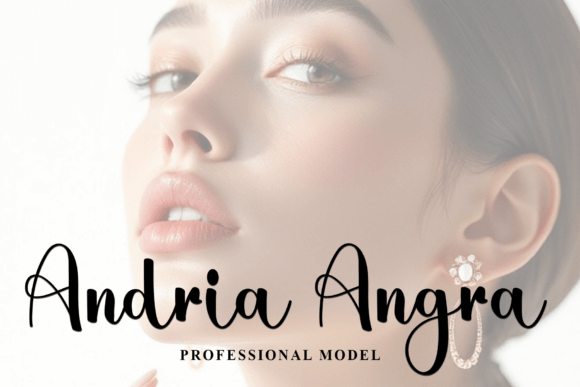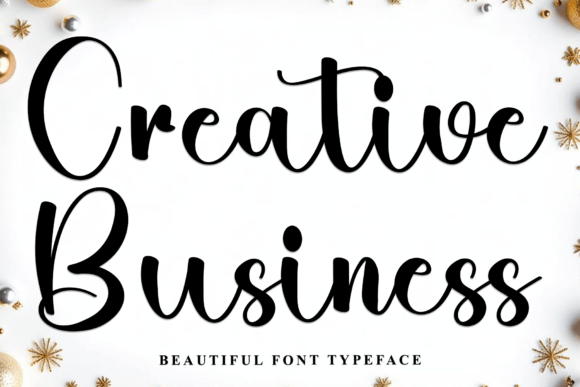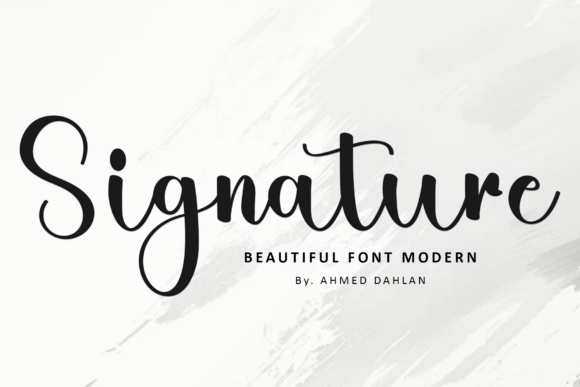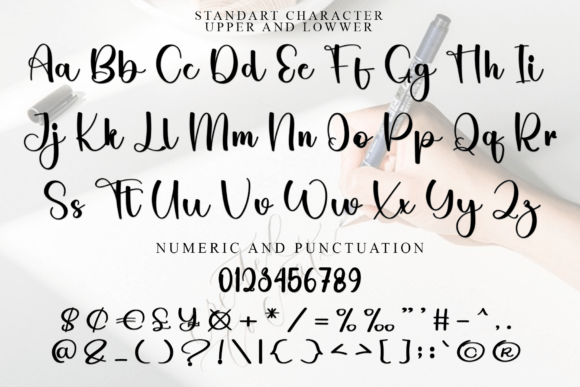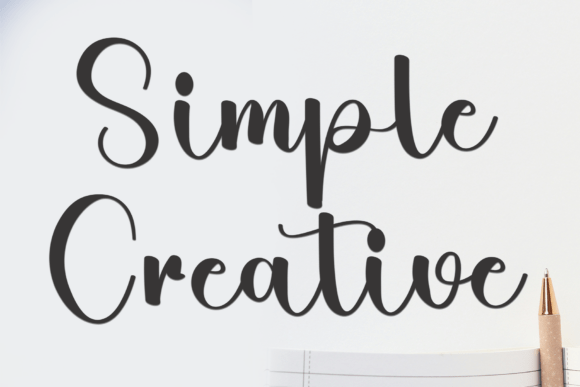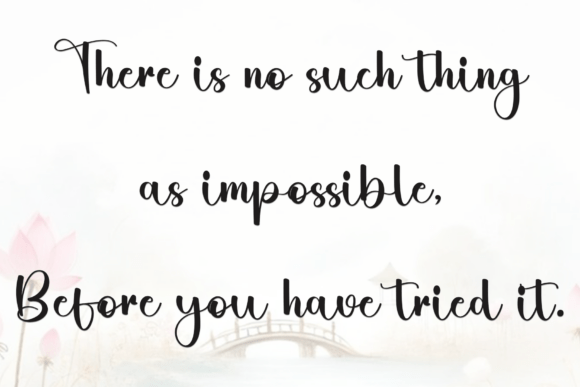
Introducing Christmas Magnolia Font: A Festive and Merry Typeface for the Holiday Season
The holiday season is upon us, and with it comes the joy of creating festive and merry designs that capture the spirit of Christmas. For designers and crafters looking to add a touch of enchantment to their projects, the Christmas Magnolia Font is a perfect choice. This beautiful and whimsical typeface is designed to bring a cheerful and nostalgic ambiance to your words, making it ideal for greeting cards, gift tags, and holiday-themed projects.
A Festive and Decorative Typeface
Christmas Magnolia Font is a decorative typeface that boasts an array of festive elements, from snowflakes and holly leaves to Christmas trees and bells. Its whimsical flair adds a playful touch to any design, making it perfect for those looking to create eye-catching and engaging projects. The font’s decorative elements are carefully crafted to evoke the magic of the holiday season, making it an excellent choice for designers and crafters who want to create unique and festive designs.
Whether you’re designing greeting cards, gift tags, or holiday-themed projects, the Christmas Magnolia Font is an excellent choice. Its festive and merry design makes it perfect for a wide range of applications, from Christmas cards and invitations to holiday-themed party decorations and social media graphics. The font’s versatility and charm make it an excellent addition to any design project, adding a touch of whimsy and fun to your words.
Why Choose Christmas Magnolia Font?
So why choose the Christmas Magnolia Font for your holiday projects? Here are just a few reasons:
- Festive and Merry Design: The Christmas Magnolia Font boasts a festive and merry design that’s perfect for the holiday season.
- Decorative Elements: The font features a range of decorative elements, including snowflakes, holly leaves, and Christmas trees, adding a touch of whimsy and fun to your designs.
- Versatile: The font is perfect for a wide range of applications, from greeting cards and gift tags to holiday-themed party decorations and social media graphics.
Tips for Using Christmas Magnolia Font
Here are a few tips for using the Christmas Magnolia Font in your holiday projects:
- Pair with Other Festive Fonts: Pair the Christmas Magnolia Font with other festive fonts to create a unique and eye-catching design.
- Use Decorative Elements: Use the font’s decorative elements to add a touch of whimsy and fun to your designs.
- Keep it Simple: Don’t be afraid to keep it simple and use the font on its own to create a clean and elegant design.
The Christmas Magnolia Font is a beautiful and festive typeface that’s perfect for the holiday season. With its decorative elements and whimsical flair, it adds a touch of enchantment to any design. Whether you’re a designer or crafter, this font is an excellent choice for creating unique and festive designs that capture the spirit of Christmas. So why not give it a try and see how it can bring a touch of magic to your holiday projects?